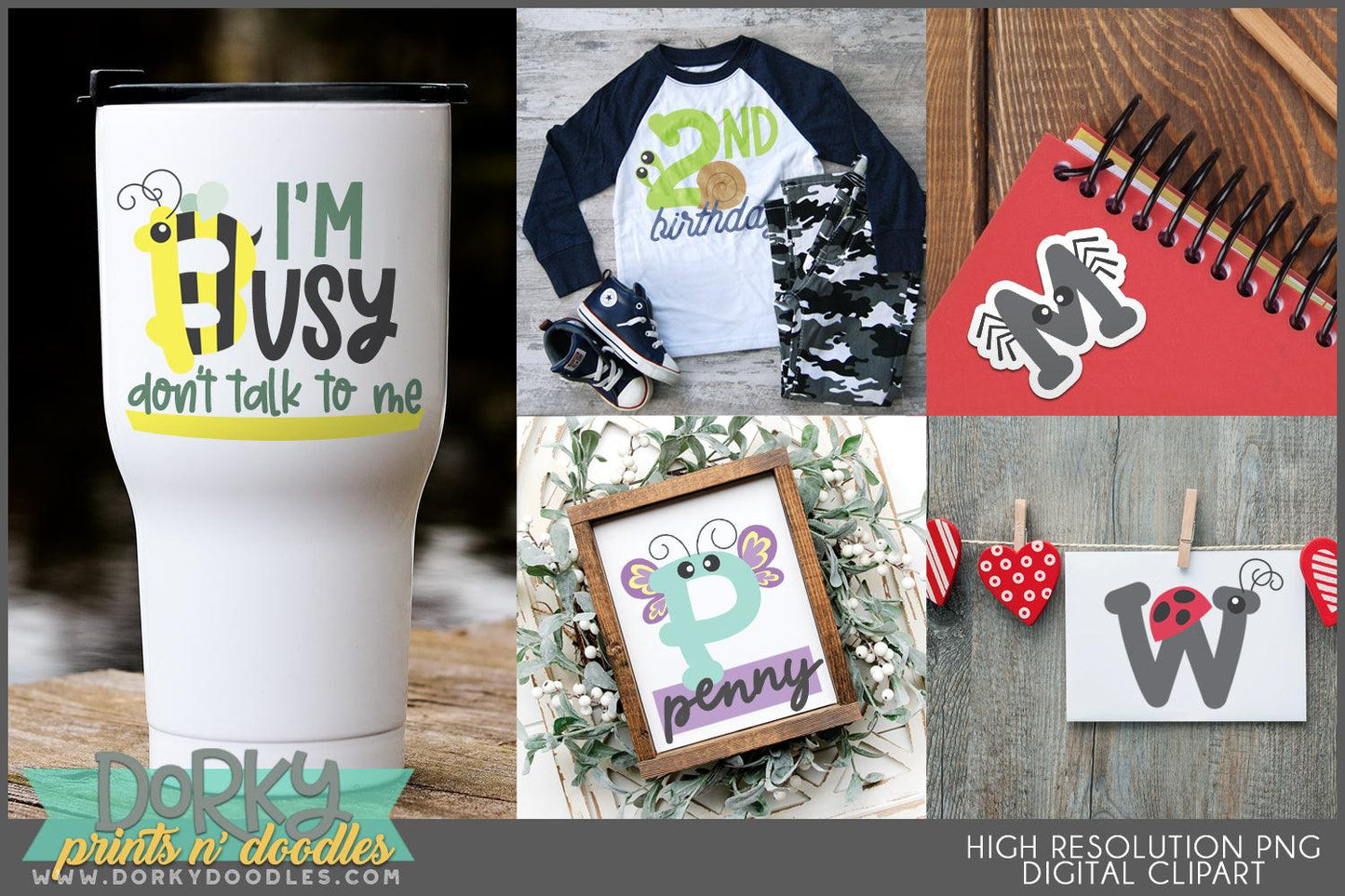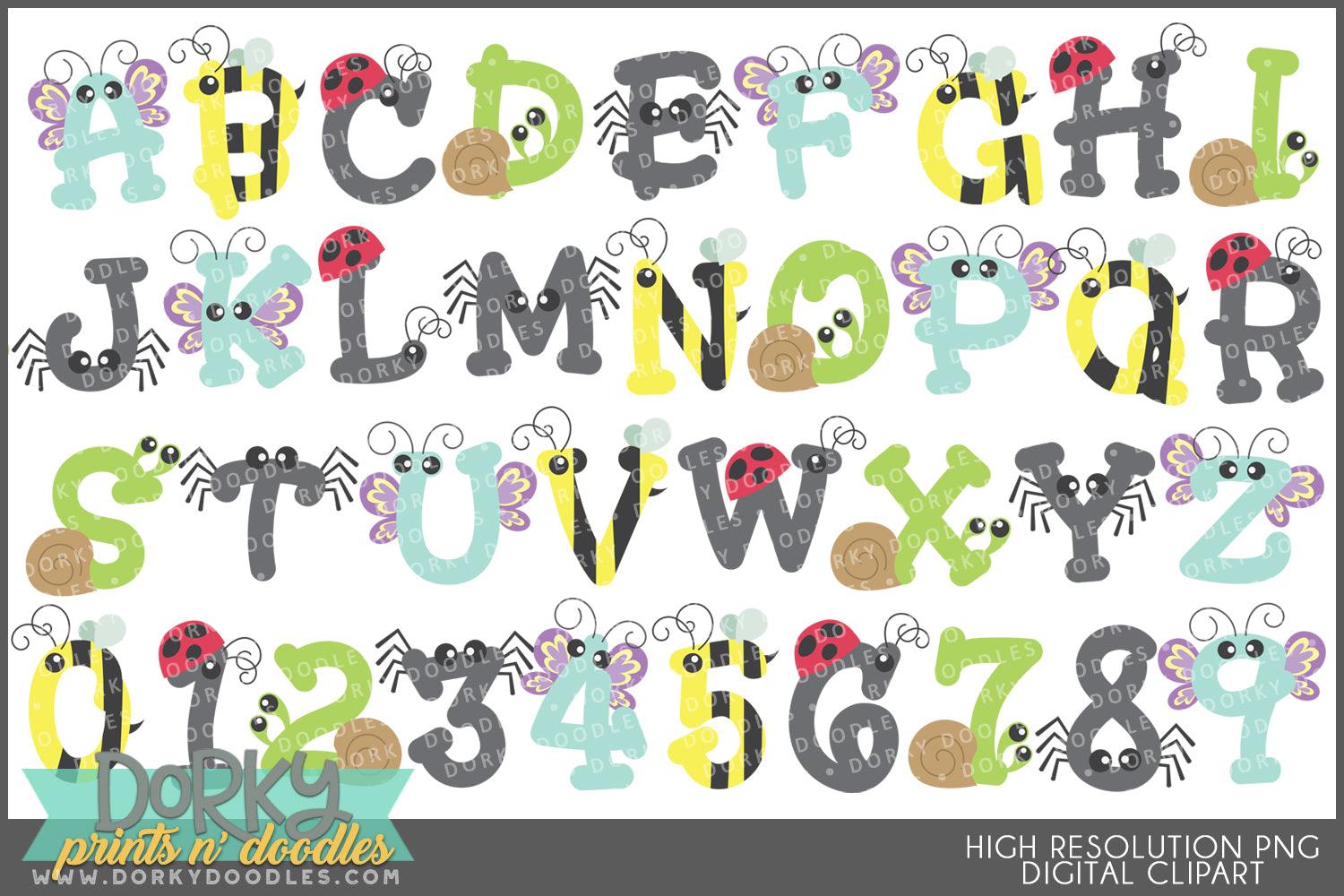
Cute Bugs Alphabet Clipart
These cute bugs alphabet clipart images look fabulous on cards, in scrapbooks, party invitations, planner stickers, sublimation projects, and decor! You will get 6 Digital Clip Art images in high resolution PNG format (they come as a ZIP file that you can download instantly once payment has cleared).
• the full alphabet and numbers 0-9 using butterflies, bees, snails, spiders, and ladybugs